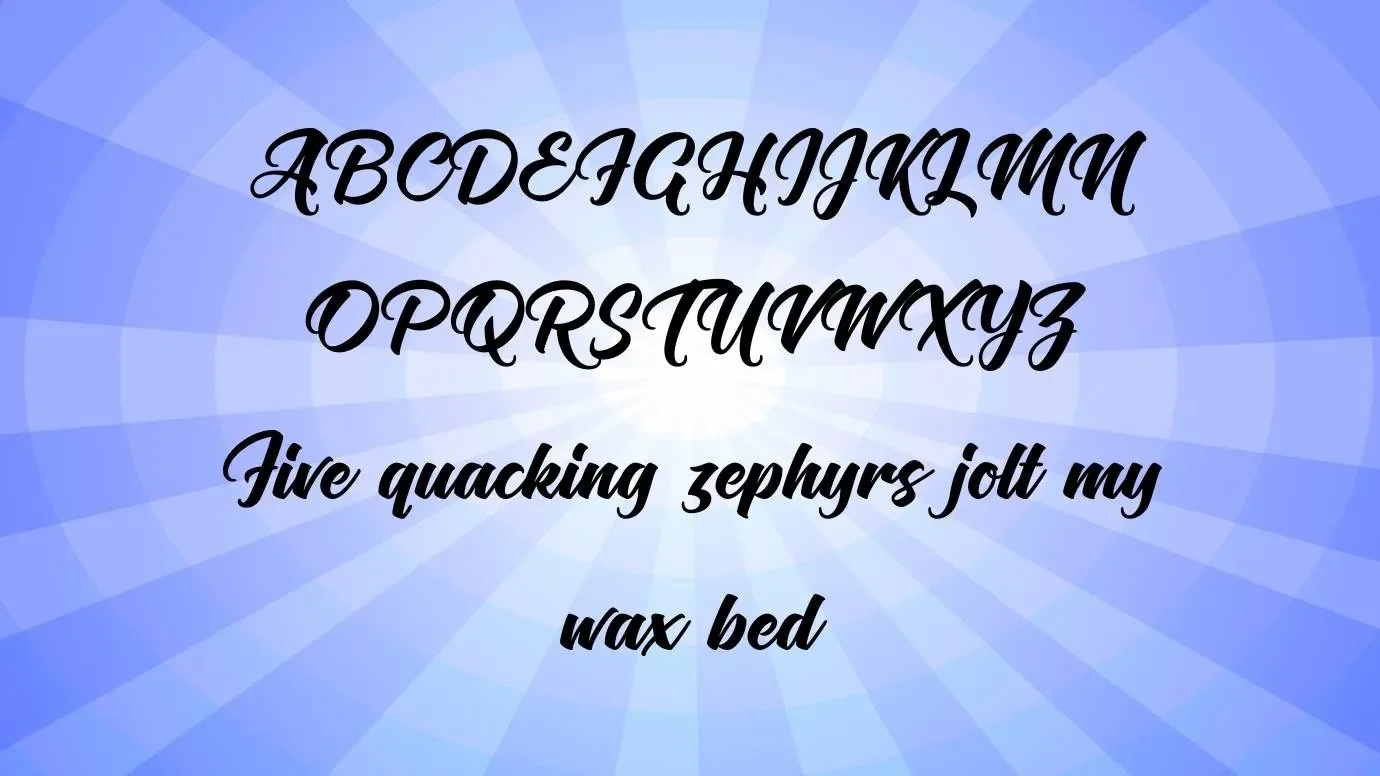
Flaming Font is the best most vintage typeface, Herlan Nawwi designed this beautiful and stylish font family and shared it with famous typography known as Sikifonts. This modern font has more than 80 characters along with numbers, punctuations, and some special characters.
This modern font is suitable for advanced design purposes additionally it is best for text design purposes. It is perfect for invitation designs that are fashionable fonts from our buddies at Stamp. The designer can make the pairing of this font with Beneth Font.
This script font has support a lot of languages such as English, Greek, French, and other famous languages. It has various features that are suitable for different design purposes. This gorgeous typeface has a free online generator tool facility that converts simple text into graphics.
This fashionable handwriting typeface has many uses that are suitable for different design purposes. Some fashionable features of this font with a calligraphy-type fashion. You can use this stunning typeface for making t-shirt designs, pants designs, and different clothes design purposes.
This font is best for posters, banners, and postcard designs for personal use. You’ve got a group of as many as four elegant script fonts here. It strength be eligible to apply them as hand-drawn poster fonts given their tough and fashionable outlook that supervises grand attention.
The flaming typeface is a cutting-edge script typeface that makes your designs more attractive and readable. This stylish font is also best for making pairing with curious george font which is a famous typeface in the script category.
What kind of font is Flaming Font?
The main kind of this font is a script and it has bold italic look characters. This beautiful typeface comes in three styles.
Is there any similar font to Flaming Font?
There are many bold script typefaces that are suitable for use in the place of its alternative but vegan style font.